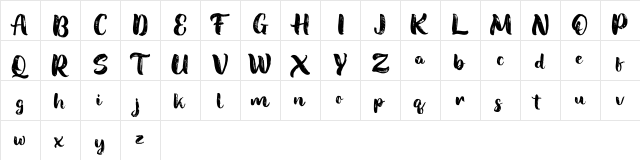
Soondae Font Texture FREE Regular
Design Context for Soondae Font Texture FREE Typeface
Soondae Font Texture FREE trades polish for personality, using distressed and eroded forms to bring grit and attitude to creative work.
A strong fit for alternative music projects, graffiti-adjacent design, and anything that deliberately resists polish.
Pro Tip: Use Soondae Font Texture FREE at larger sizes where the texture and irregularity of each letterform can be clearly seen — it loses its character at small sizes.